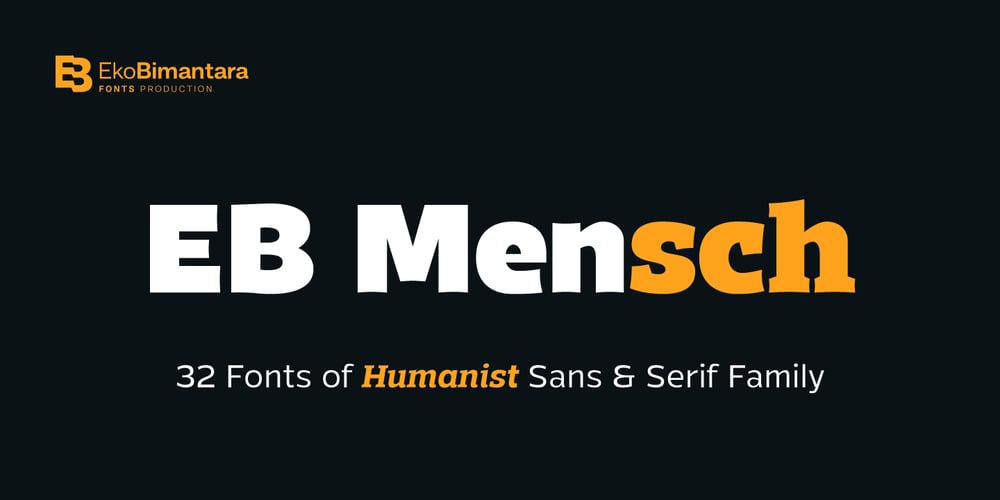
EB Mensch
EB Mensch font
EB Mensch Font Family was designed by Eko Bimantara and published by Eko Bimantara. EB Mensch contains 32 styles and family package options. EB Mensch is a complete humanist sans and serif font family. EB Mensch emphasize expressive and fun characters that visualized by it’s letterforms; Large x height, low caps, spacious counters and apertures, characterized by diagonal and sunken stroke ends. Perfect for large display and also to be read in small size. Mensch contain 32 fonts consist of sans and serif styles with 8 weight from thin to black with each matching italics. Its contain more than 440 glyphs which support broad latin languages.